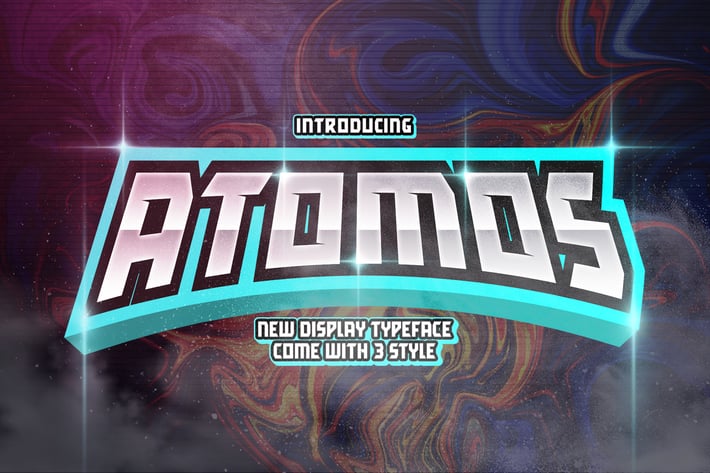
Atomos Display Typeface
Introducing Atomos an incredibly Unique and Interesting Display Font. This perfect for the purposes of designing templates, brochures, videos, advertising branding, logos and more.